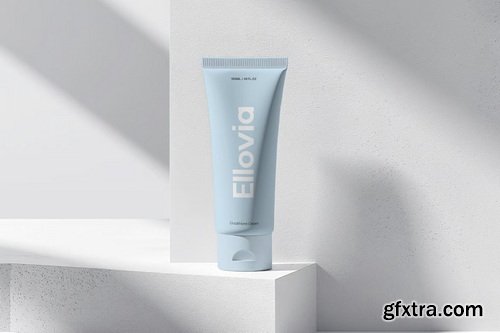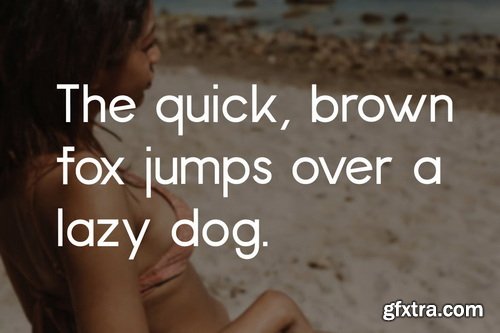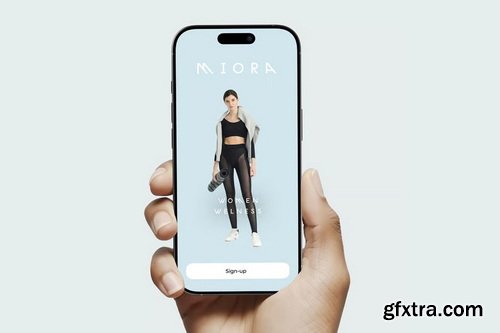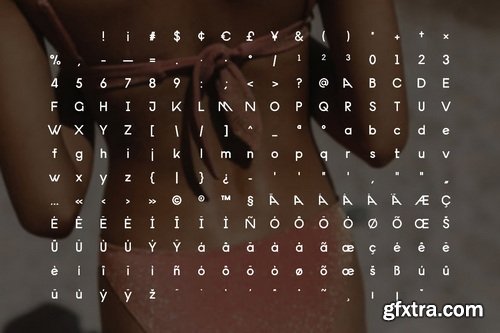
Miora Modern Display Font Family
Miora is a modern fashion display typeface designed for visual clarity, minimal elegance, and expressive branding. Inspired by high-end beauty campaigns and wellness culture, Miora features 6 sleek weights with matching italics making 12 fonts in total and supports over 100 languages. With its smooth curves and sharp cuts, Miora is ideal for packaging, mobile apps, editorials, and contemporary design systems.